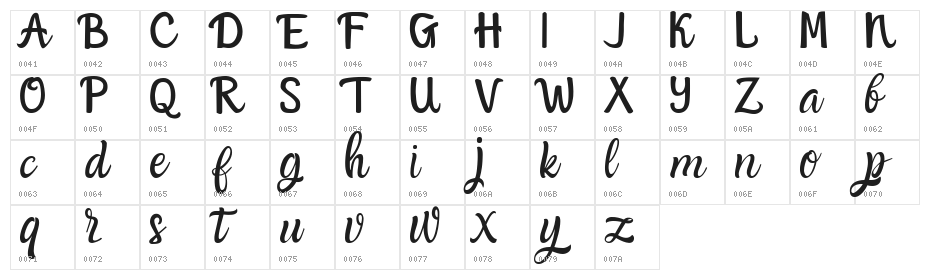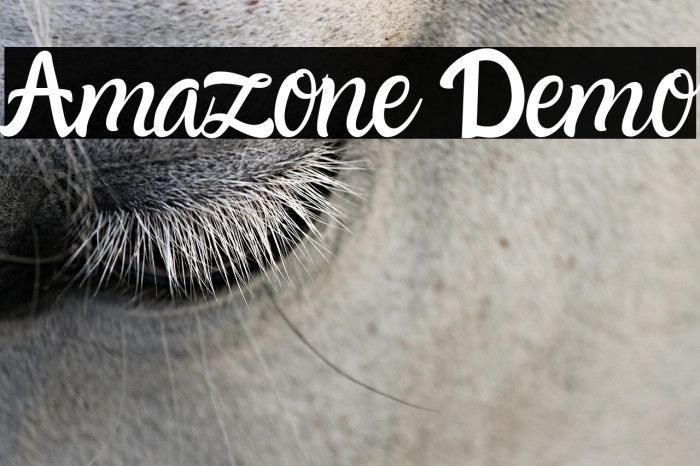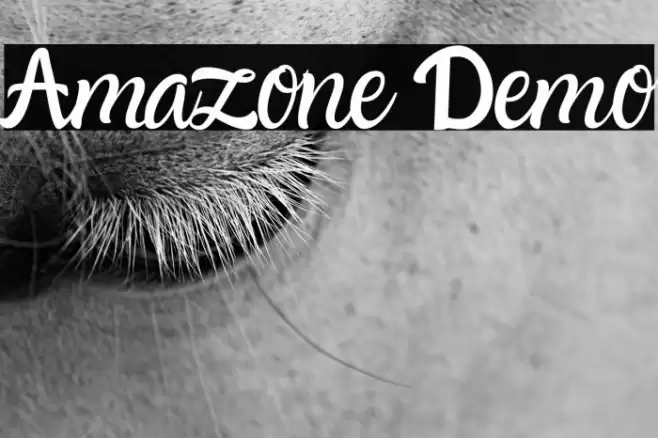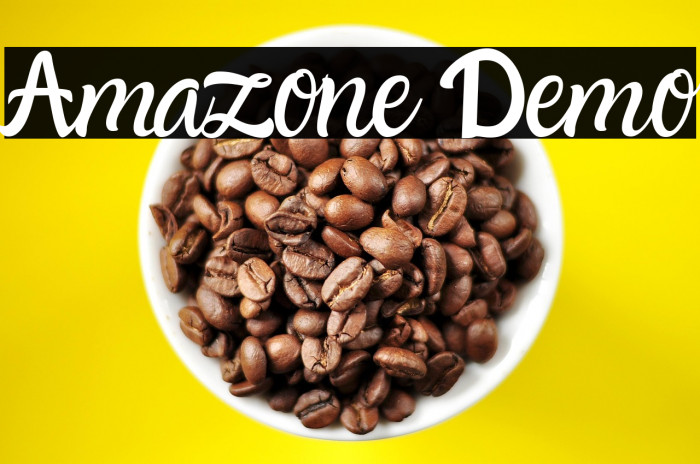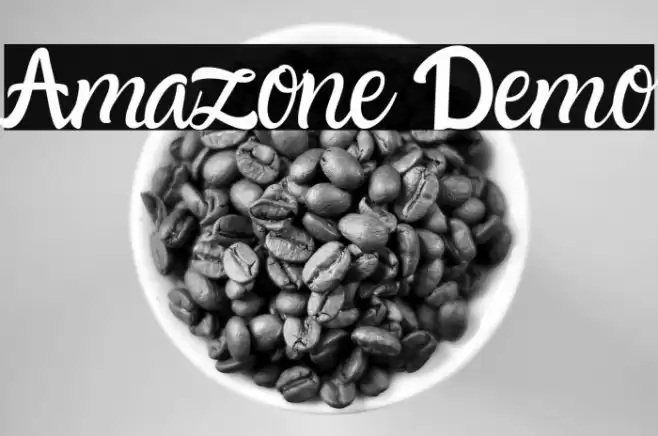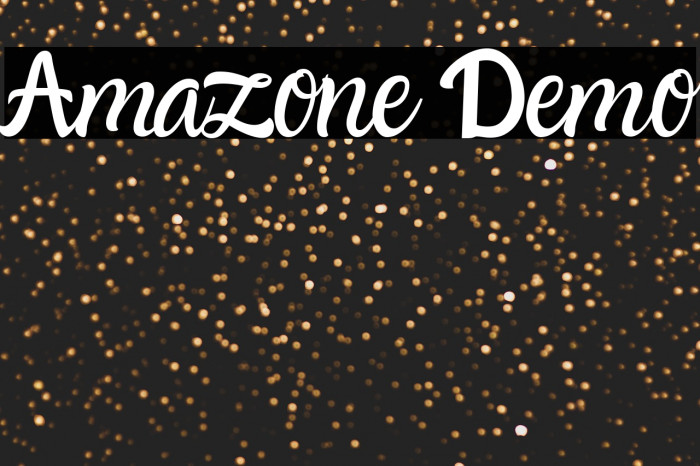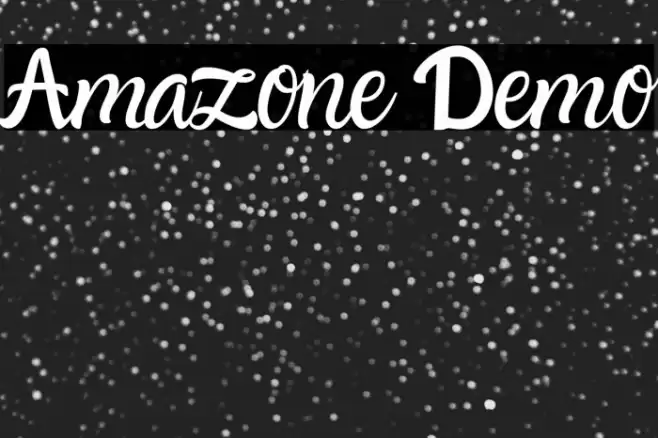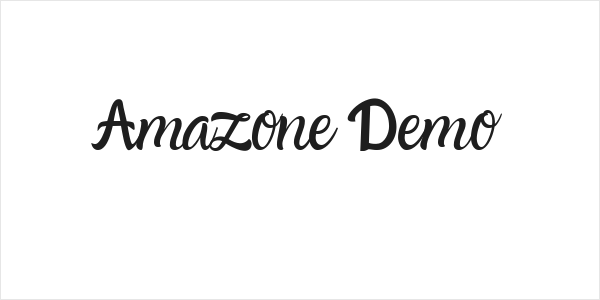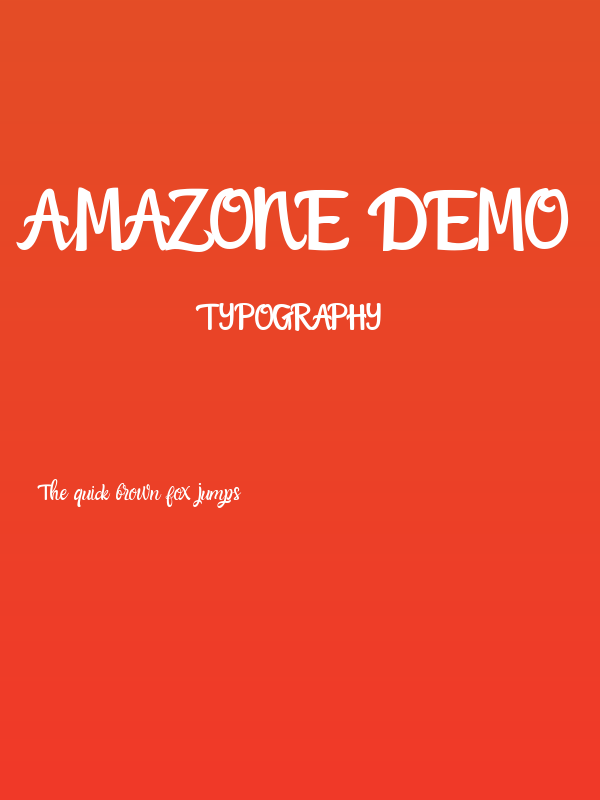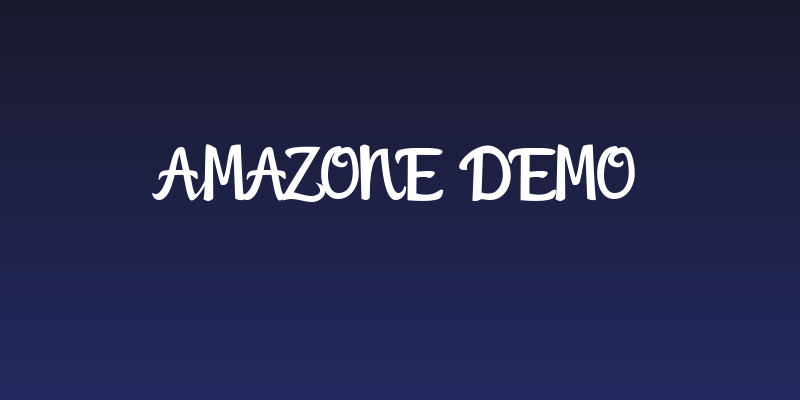
Amazone Demo Font
Amazone Demo Description
This font features a playful and energetic script style with a handwritten appearance. The letters are connected in a fluid manner, giving it a dynamic and lively feel. The uppercase letters are bold and slightly rounded, while the lowercase letters maintain a consistent flow with elegant loops and curves. The numbers and special characters follow the same playful style, ensuring a cohesive look throughout. This font is perfect for projects that require a personal touch or a sense of creativity and fun.
Use CaseLogos, Headlines, Creative projects
Proposed ProjectsIdeal for greeting cards, invitations, logos, and creative branding projects.